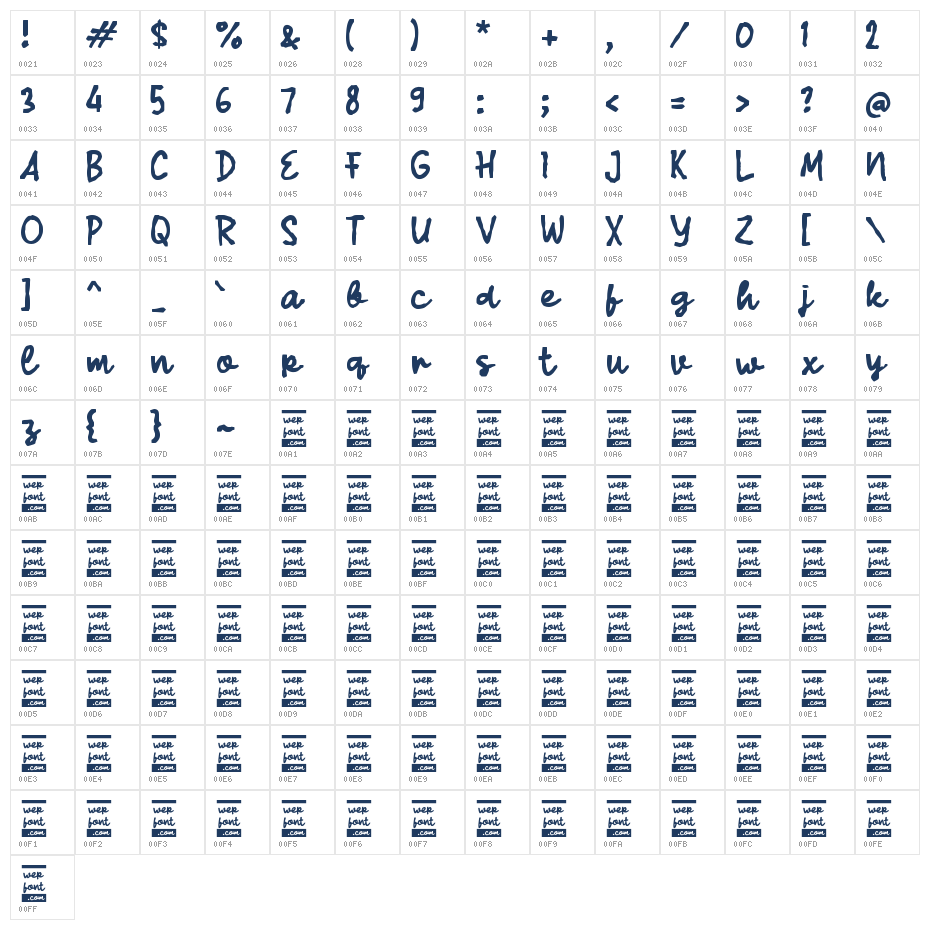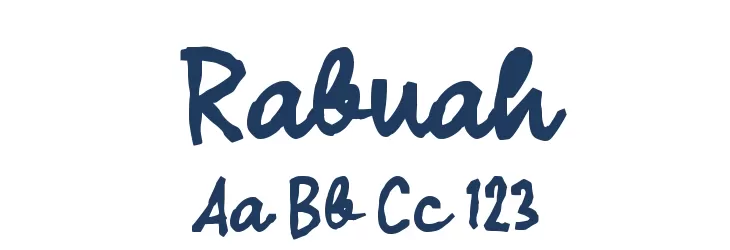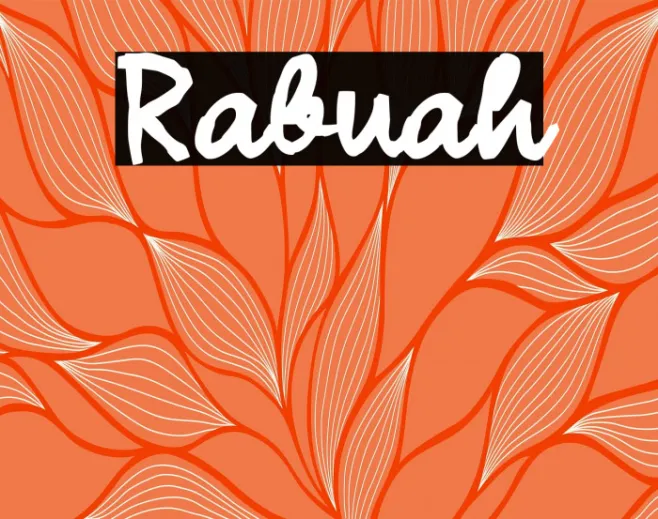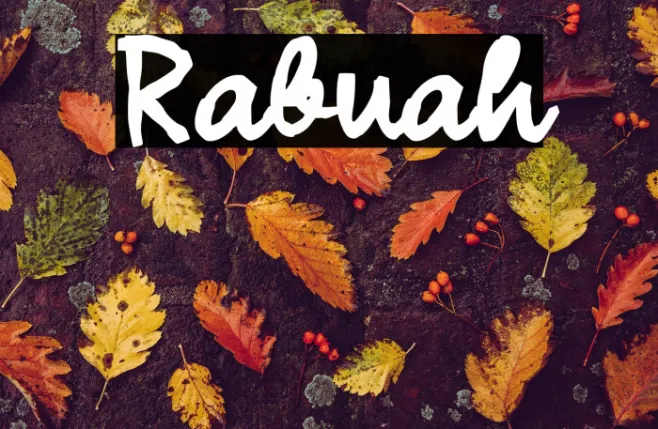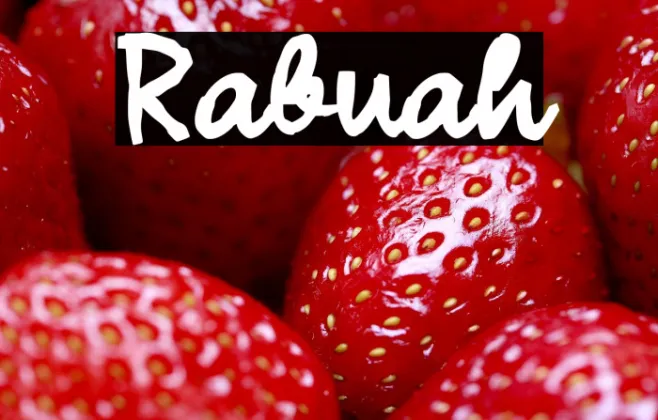
Rabuah Font
Rabuah Description
A bold, playful, handwritten style font with irregular, brush-like strokes.
| Use Case | Headlines, Logos, Posters, Creative branding |